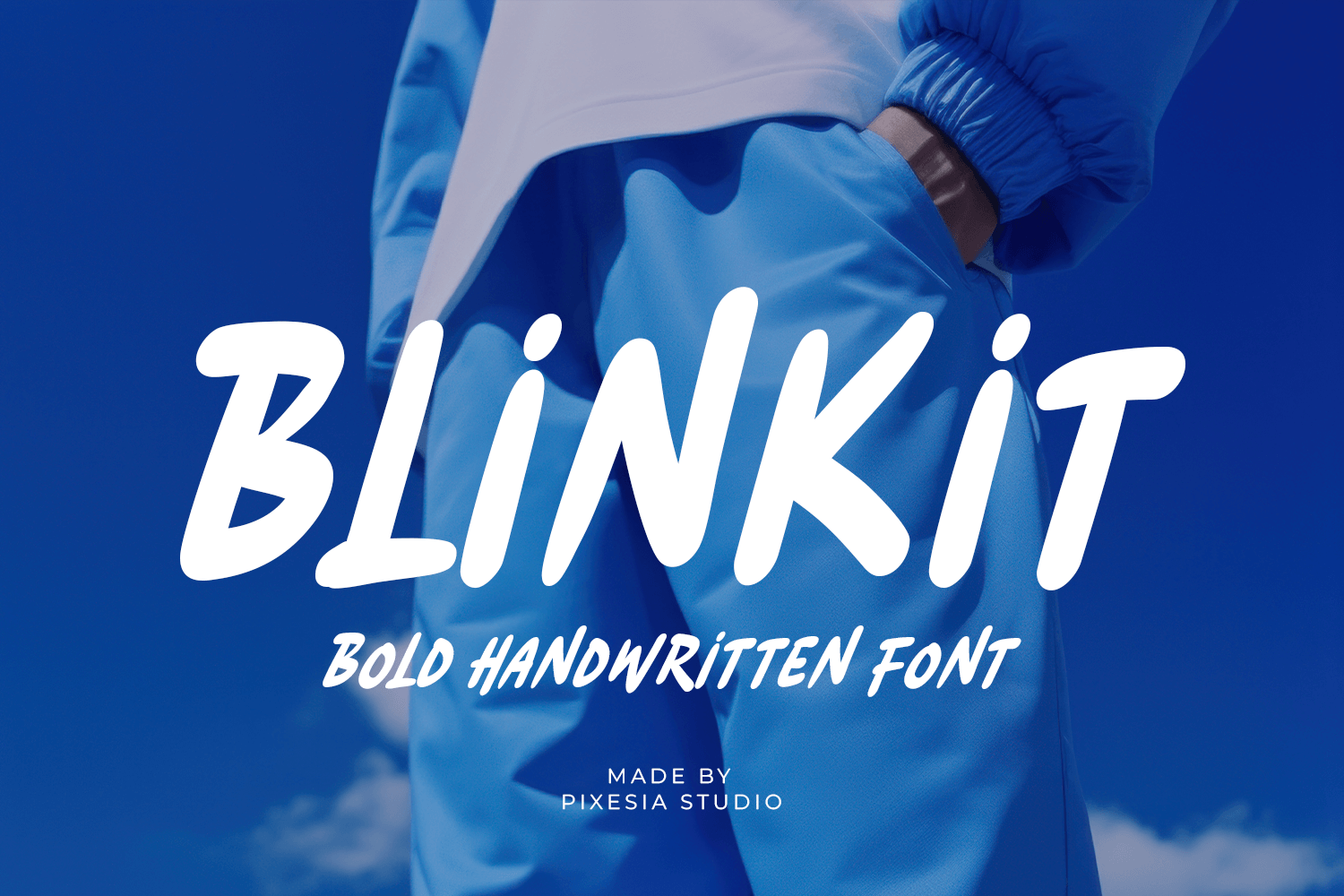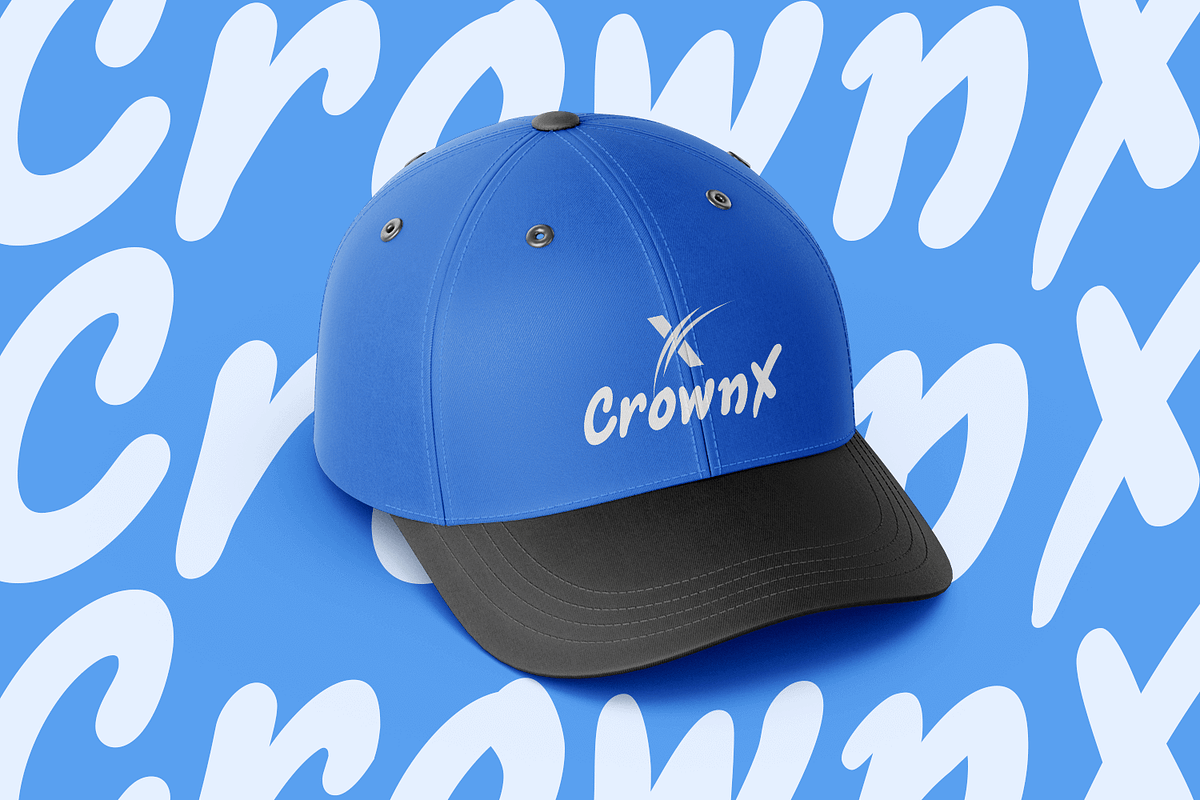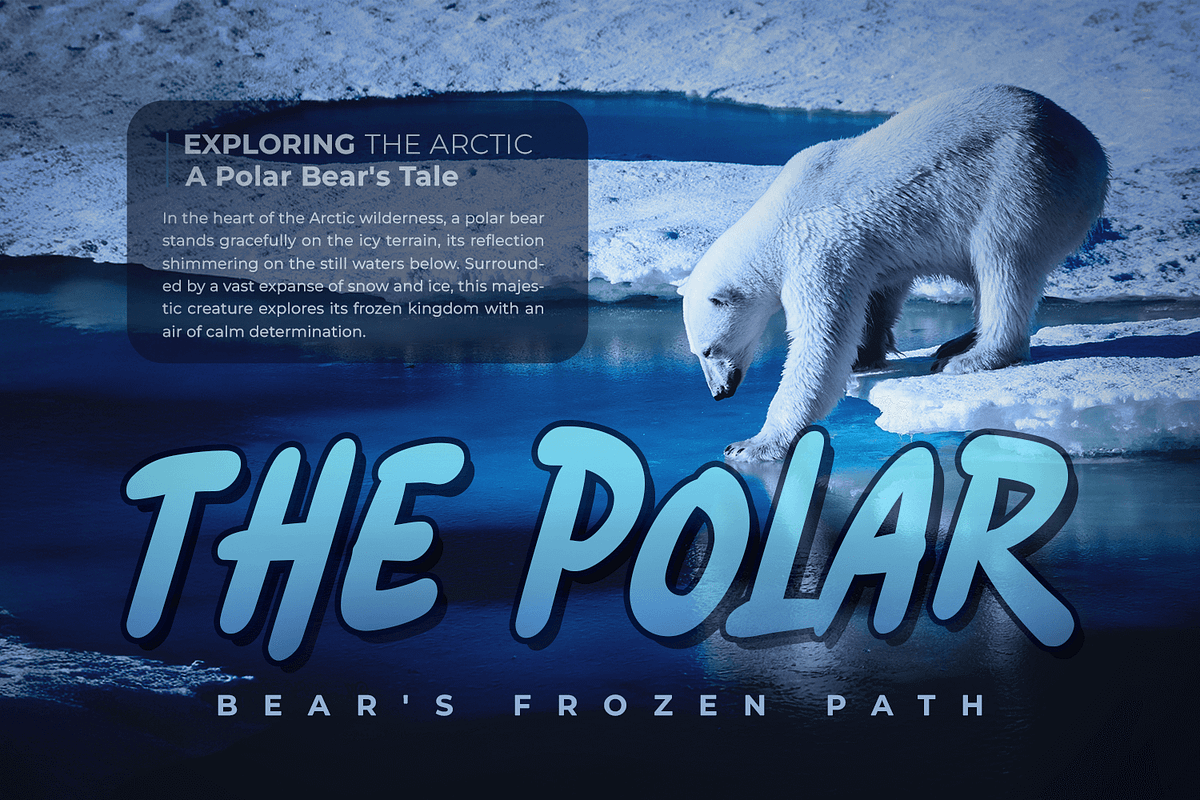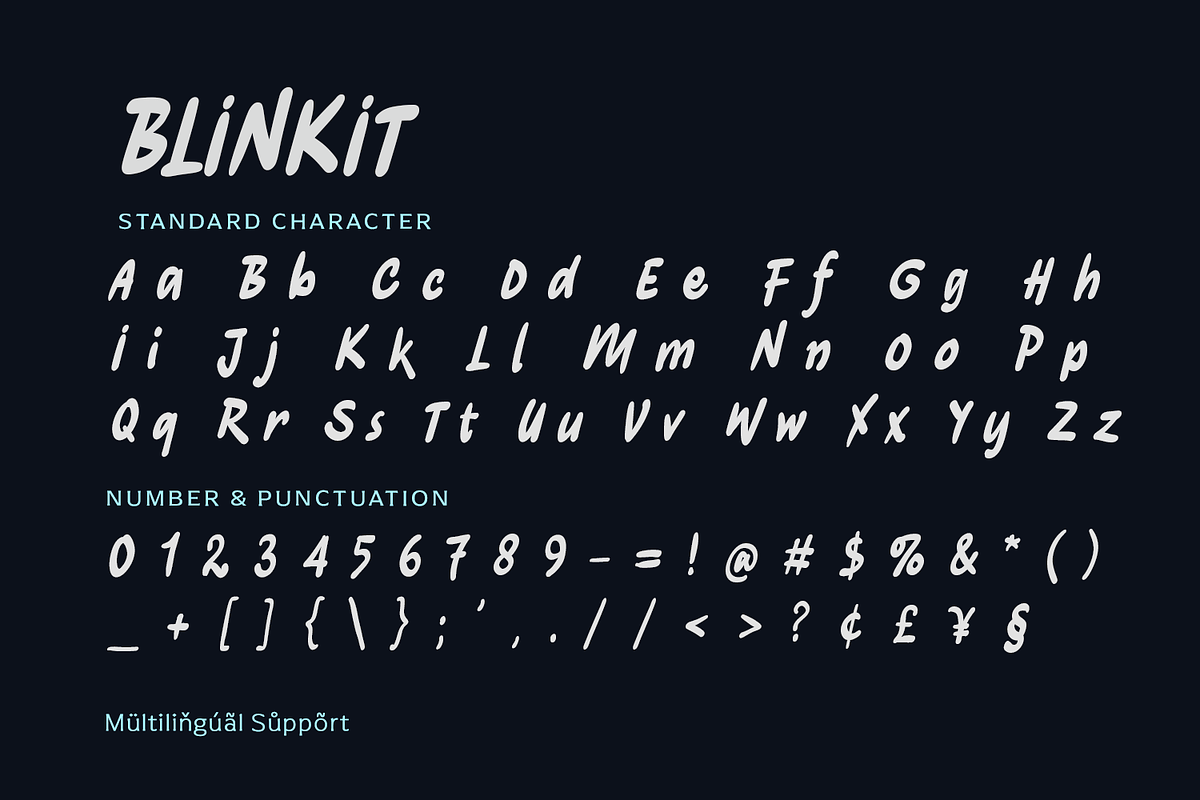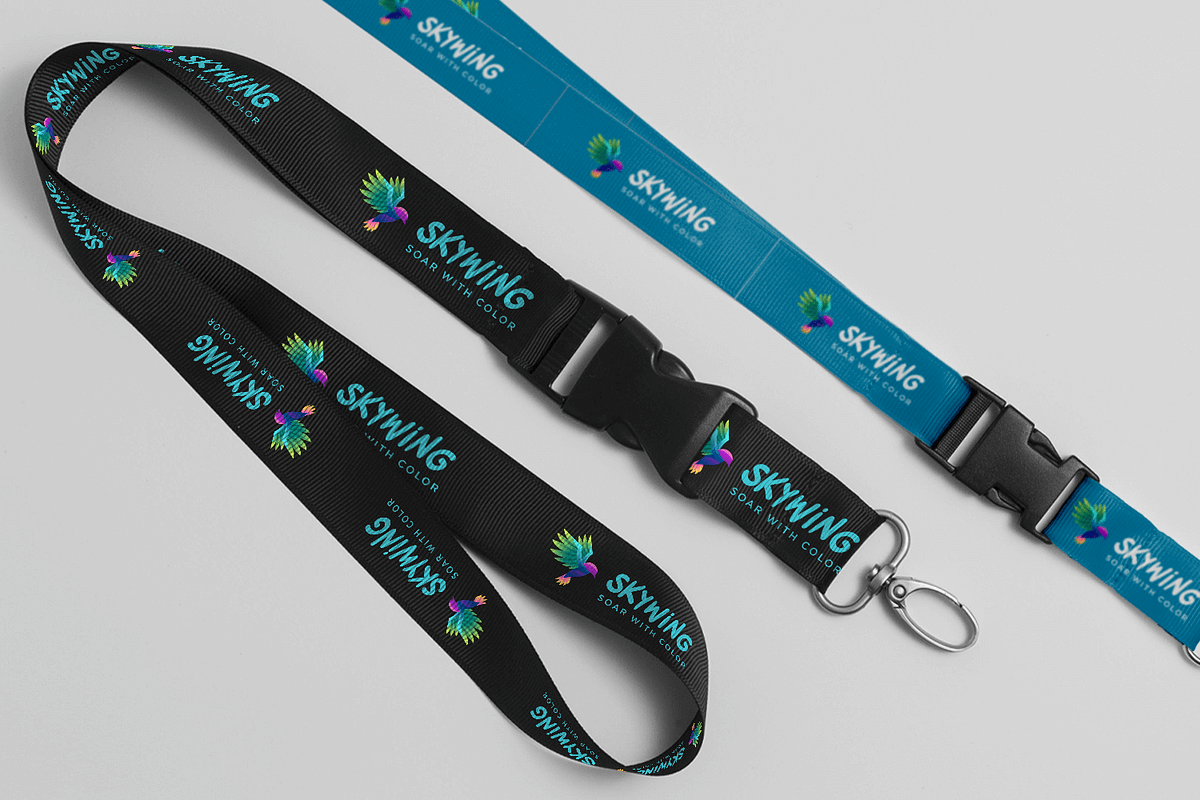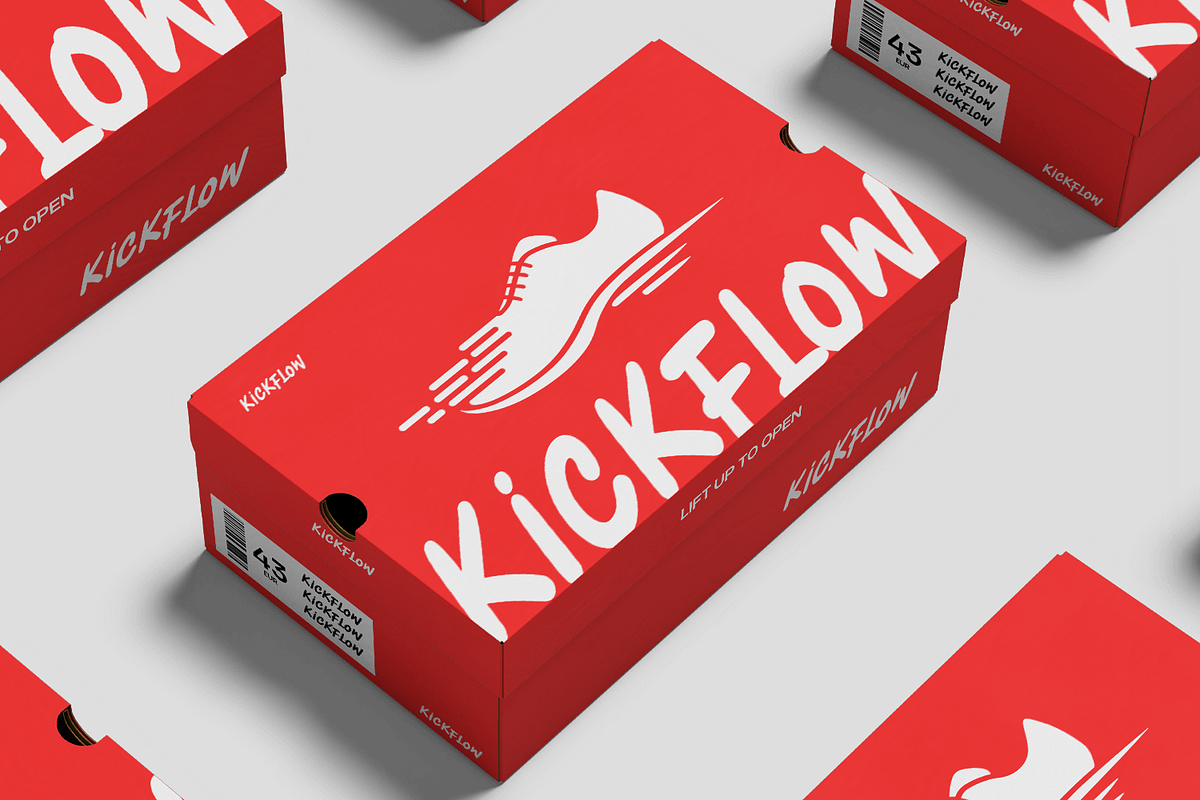
Blinkit – Bold Handwritten Font
Introducing Blinkit – Bold Handwritten Font Blinkit is a bold handwritten font that combines casual charm with confident strokes. Its clean yet playful style makes it versatile for designs that need both personality and readability, giving your text a fresh, modern touch. Blinkit is perfectly for branding, social media posts, packaging, posters, t-shirts, invitations, and editorial projects, Blinkit adds a bold handwritten flair that keeps your design stylish, fun, and approachable. FEATURES: - Stylistic Alternates - Uppercase and Lowercase letters - Numbering and Punctuations - Works on PC or Mac - Simple Installation - PUA Encoded Characters - Easily accessible without additional design software. - Support Adobe Illustrator, Adobe Photoshop, Adobe InDesign, also works on Microsoft Word - Multilingual Support including Afrikaans, Albanian, Basque, Catalan, Danish, Dutch, English, Estonian, Faroese, Filipino, Finnish, French, Galician, German, Icelandic, Indonesian, Irish, Italian, Malay, Norwegian Bokmål, Portuguese, Spanish, Swahili, Swedish, Zulu Hope you Like it. Thanks.